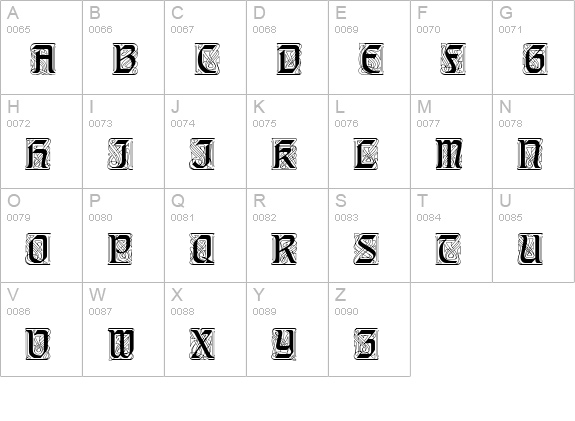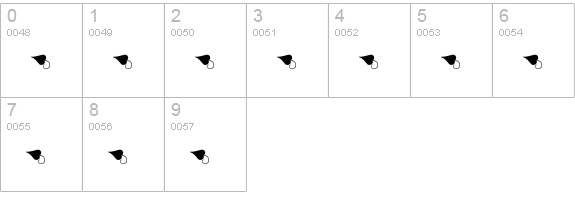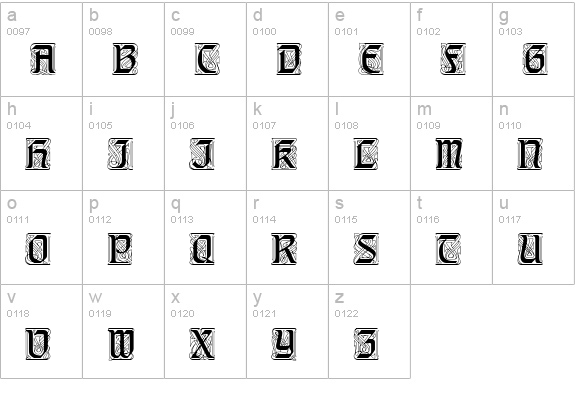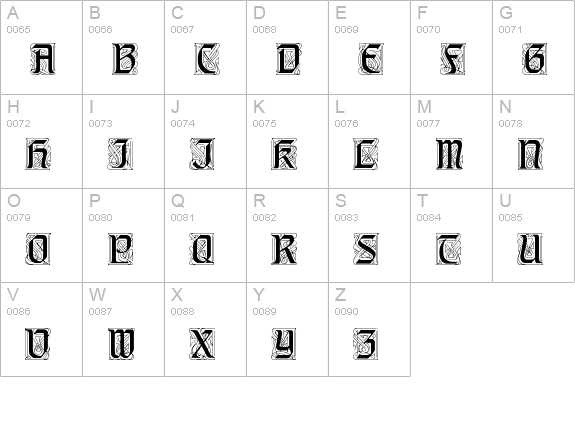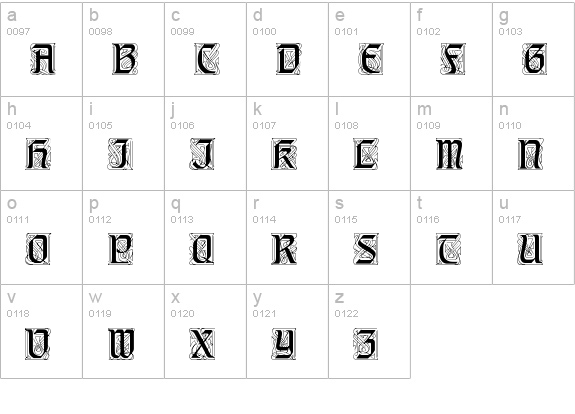
Augsburger Initials font is a stunning and elegant typeface that exudes sophistication and historical charm. These ornate initials are meticulously crafted with intricate details that make them perfect for adding a touch of luxury to any design project. The elaborate swirls and flourishes of Augsburger Initials font will make your text stand out and leave a lasting impression on your audience. What's even better is that Augsburger Initials font is completely free to download at FontsMarket.com. This means you can easily access this beautiful font and use it in your personal or commercial projects without any cost. Whether you're working on invitations, posters, or branding materials, Augsburger Initials font will elevate your designs and give them a touch of old-world charm. Download Augsburger Initials font today and add a touch of elegance to your projects.